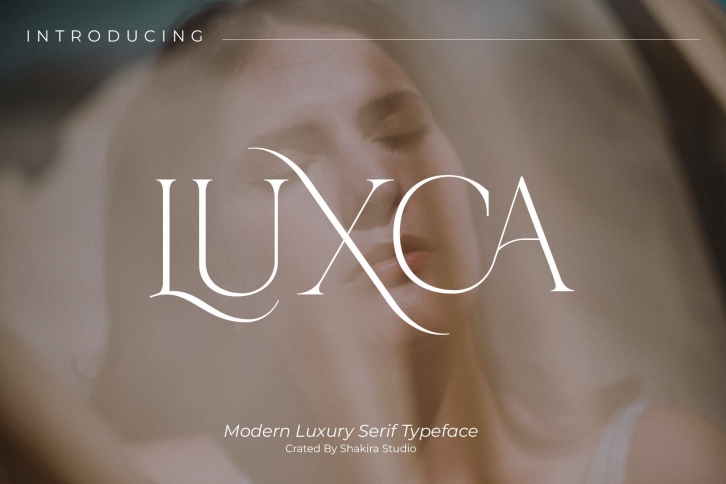
Introducing Luxca, a font that epitomizes modern luxury within the serif category. This typeface seamlessly blends contemporary sophistication with timeless elegance, making it the perfect choice for designers seeking to infuse their projects with an air of opulence and refinement.
With Luxca as your font of choice, you have at your fingertips a versatile tool that can elevate a wide range of design applications. Whether it's high-end branding, editorial layouts, invitations, or packaging, Luxca adds a touch of sophistication and luxury to every project.
The beauty of Luxca lies not just in its design but also in its ability to convey a sense of modernity while honoring traditional typographic principles. It strikes a harmonious balance between the old and the new, making it the go-to choice for projects that demand a contemporary yet timeless aesthetic.